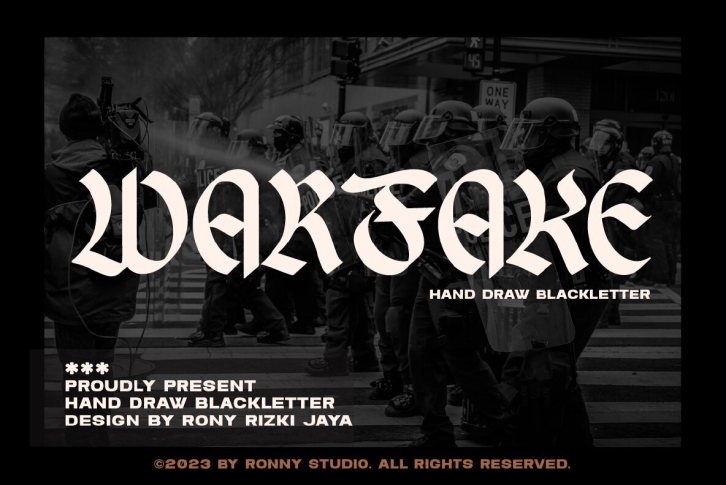
Discover Warfake, a high-contrast blackletter typeface that brings a bold and modern touch to your design projects. Equipped with alternative characters and multi-language support, Warfake is perfect for creating eye-catching titles, flyers, greeting cards, product packaging, book covers, printed quotes, logotypes, clothing designs, branding, and album covers.
Numbers and Punctuation
Multilingual Support
Alternates